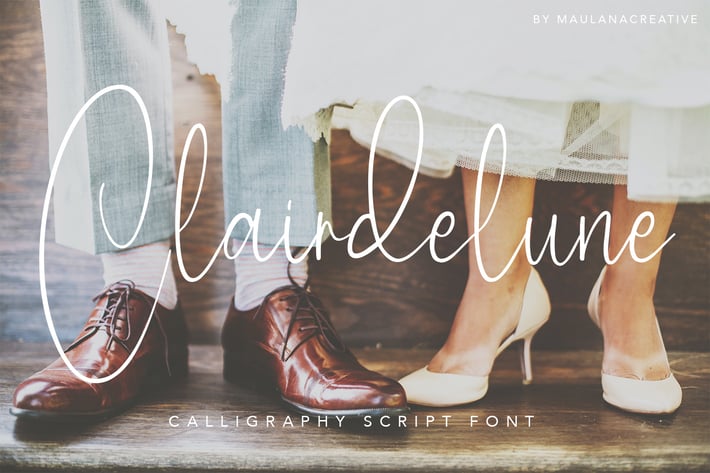
Clairdelune Calligraphy Modern Script Brush Font
Give your designs an authentic handcrafted feel. “ Clairdelune” is perfectly suited to stationery, logos and much more.